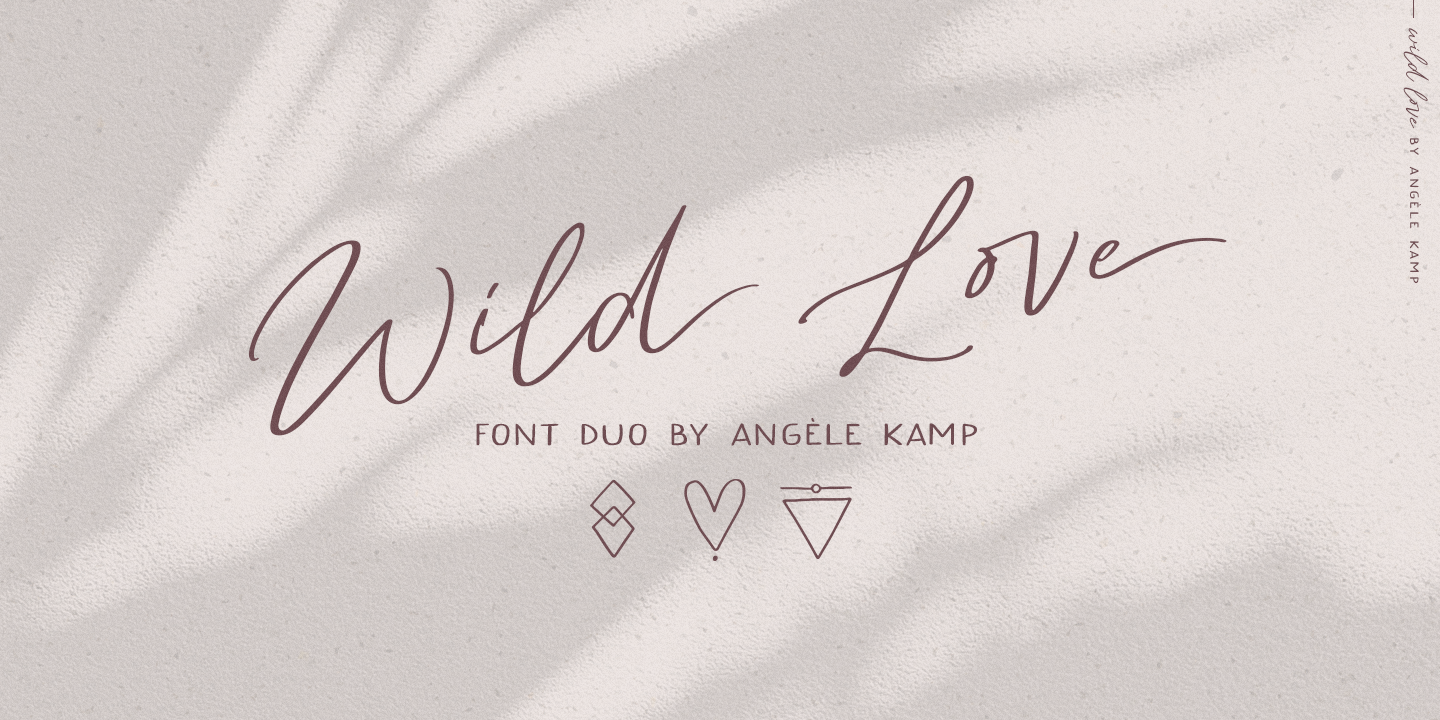
Wild Love Font is perfect for bohemian wedding invitations, free-spirited festival branding, indie music album covers, artisan craft boutique signage, nature-inspired retreat marketing, romantic camping getaway promotions, wild flower shop branding, and adventurous couple's photography studios.
Wild Love Font is exciting because it captures the untamed passion of authentic romance with its free-flowing letterforms that dance like wildflowers in a summer breeze and pulse with the heartbeat of genuine emotional connection. The typeface embodies the spirit of unconventional love and natural beauty, creating an immediate sense of freedom and passionate authenticity that speaks to hearts seeking adventure beyond ordinary boundaries.
Wild Love Font family includes Regular, Bold, Light, and Script variants, complemented by organic flourishes and nature-inspired decorative elements, offering designers expressive typography tools for creating communications that celebrate love in its most natural and uninhibited forms.
Whether you're designing a bohemian lifestyle brand identity, creating unconventional wedding materials, or developing nature-focused romantic content, Wild Love Font Free Download provides unmatched emotional authenticity and free-spirited charm. This captivating typeface perfectly balances organic spontaneity with heartfelt readability, ensuring your communications resonate with audiences who value genuine connection over conventional romance. The font's flowing character variations and passionate energy make it particularly effective for brands that celebrate authentic relationships, natural living, and the kind of wild beauty that exists beyond societal expectations. Creative professionals in the wedding and lifestyle industries consistently choose Wild Love Font when projects require typography that communicates freedom, passion, and the kind of untamed romance that flourishes in natural settings, making it indispensable for alternative wedding branding, outdoor adventure marketing, and any application where expressive typography can capture the magnificent wildness of true love and the beautiful chaos that defines relationships built on genuine connection and shared adventures.